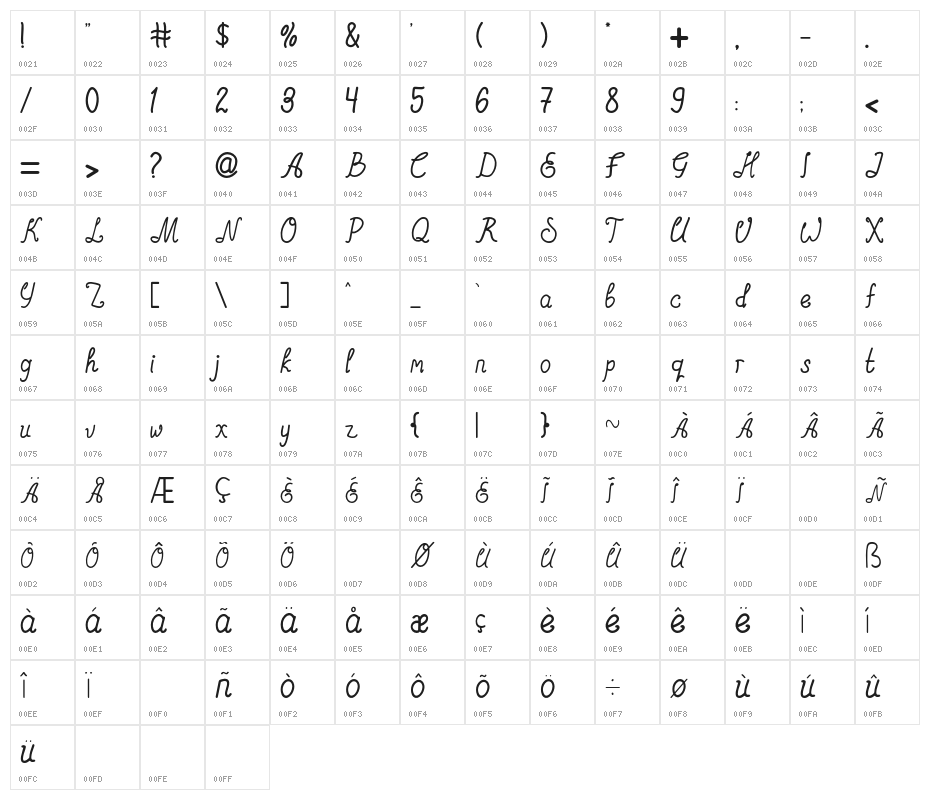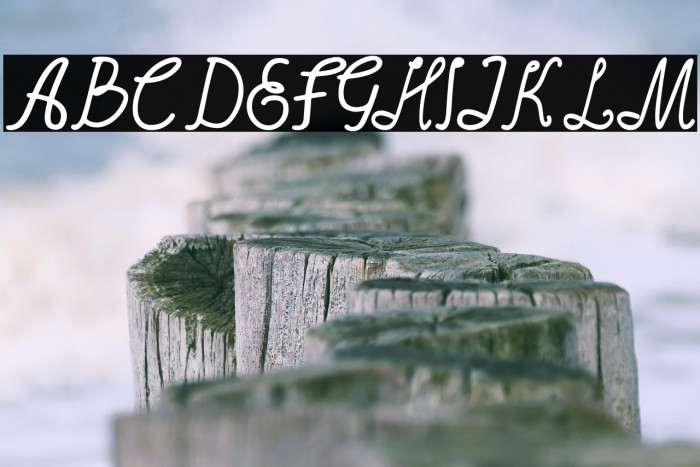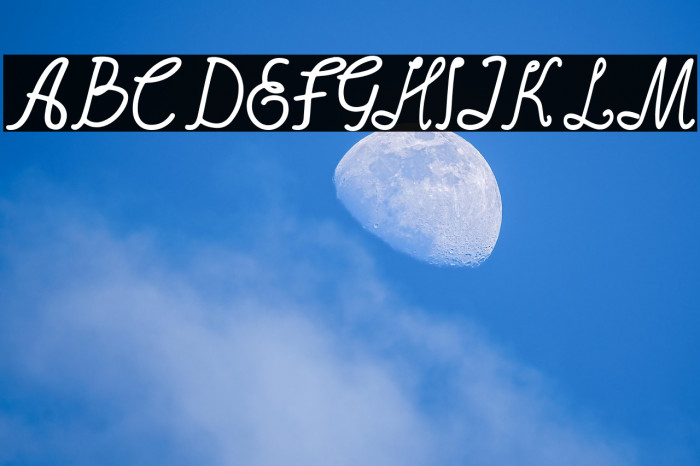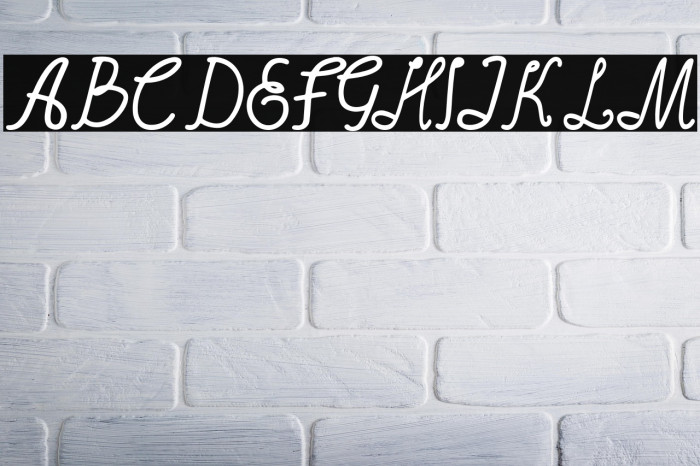
Akagami Font
Akagami Description
This font features a playful and whimsical script style, characterized by its smooth, flowing lines and slightly irregular strokes that give it a hand-drawn appearance. The uppercase letters are bold and expressive, with a slight slant that adds to the casual, informal feel. The lowercase letters maintain a consistent style, with rounded edges and a slight bounce that enhances the font's lively character. The numerals are clear and legible, matching the overall aesthetic with their rounded forms. Special characters are creatively designed, fitting seamlessly with the rest of the font. This font's unique style makes it ideal for projects that require a personal touch.
| Proposed Projects | Greeting cards, invitations, children's books, playful branding, and social media graphics. |